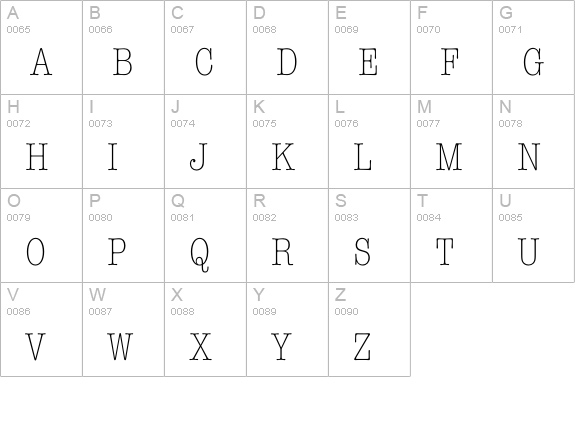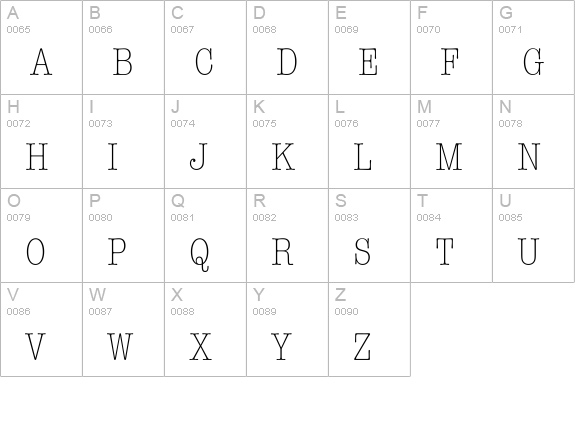
RomtypewriterCondensedLight Font Details
The RomtypewriterCondensedLight font is a sleek and modern typeface that combines elegance with simplicity. With its condensed and light design, this font is perfect for adding a touch of sophistication to any project. The clean lines and subtle curves make it versatile for a variety of design applications. Best of all, RomtypewriterCondensedLight font is available for free download at FontsMarket.com. Whether you're working on a branding project, website design, or print materials, this font will elevate your work with its stylish and contemporary look. Don't miss out on this opportunity to enhance your designs with this beautiful and professional font.